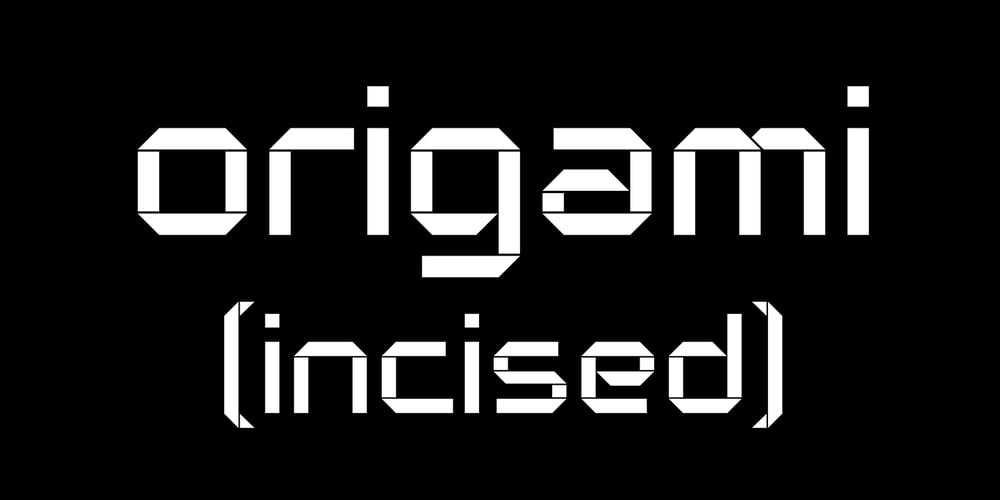
Origami Incised
Origami Incised font
Origami Incised Font Family was designed by James Marsh and published by ArtyType. Origami Incised contains 1 styles and family package options. Once I set on the concept for this ‘Origami’ inspired font, I used an imaginary strip of folded paper as the basis for each character, the folded effect being realized fully by incorporating an incised line. Of course the folded paper aspect is just a two dimensional illusion but subconsciously, will automatically be interpreted three dimensionally. There are numerous options for creating alternative characters following this logic, as the centuries-old Origami tradition itself illustrates quite clearly, but I wanted to maintain an ordered sense of style and balance throughout the full character set, so avoided any unnecessary flourishes, staying true to the Japanese ethos and spirit.